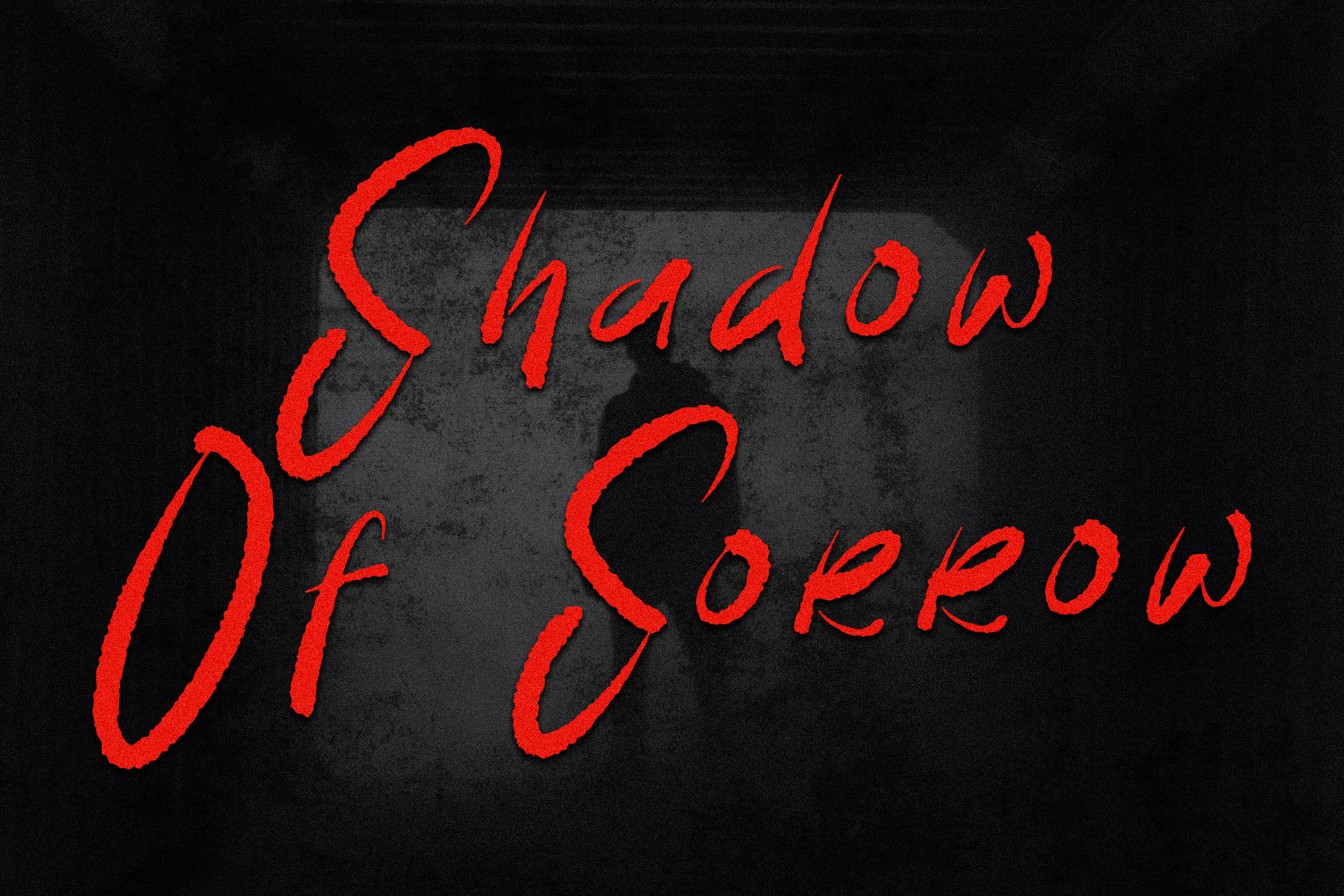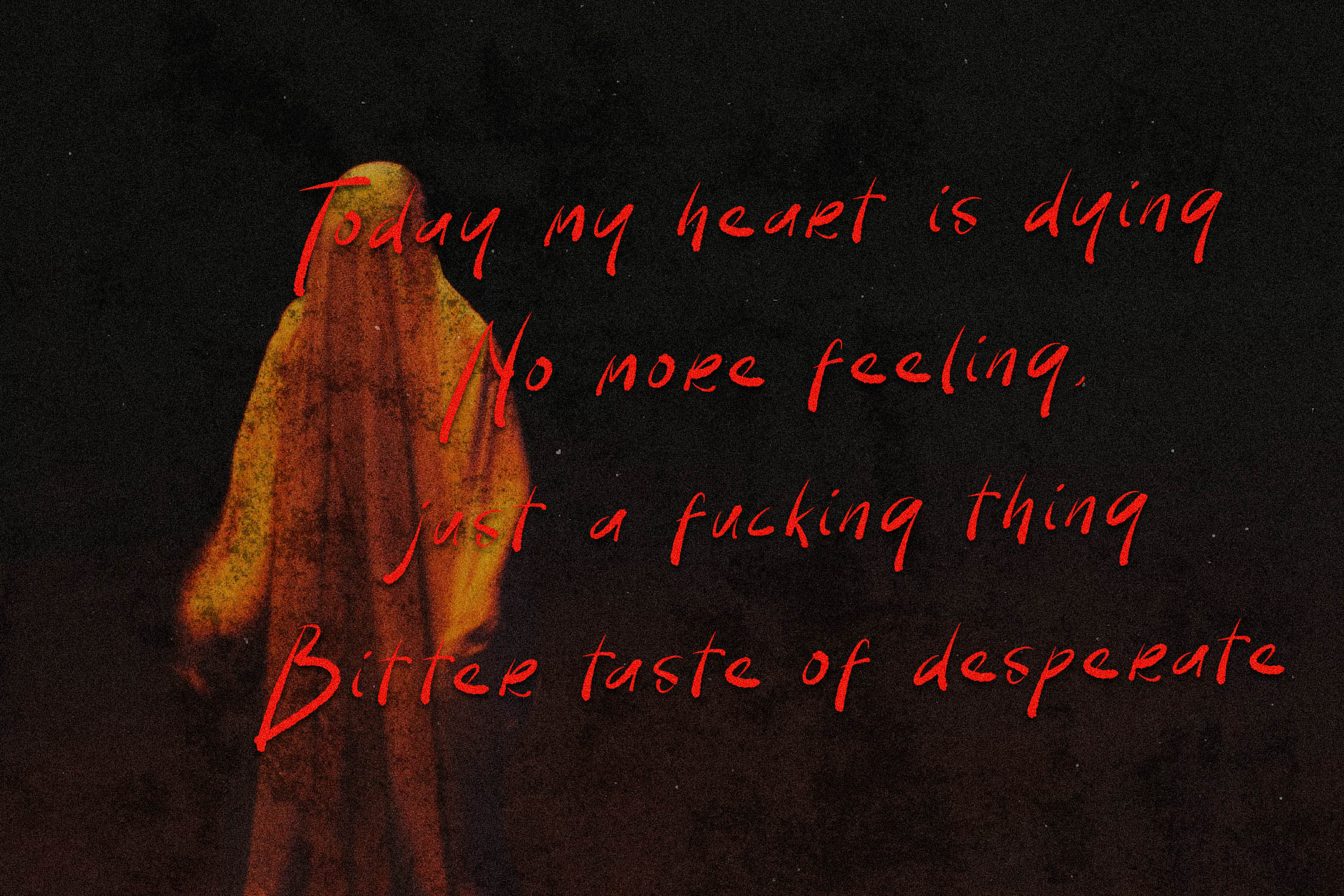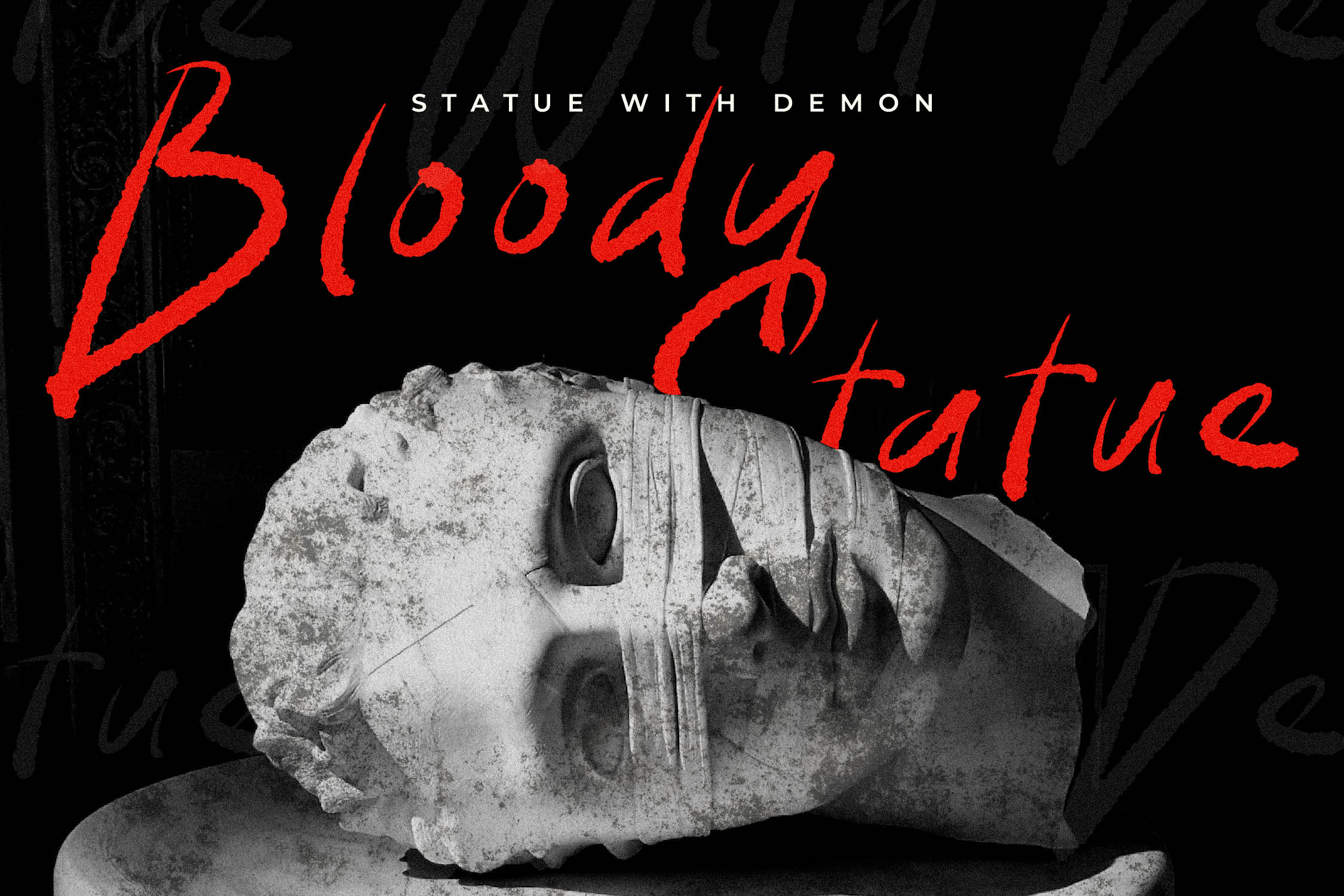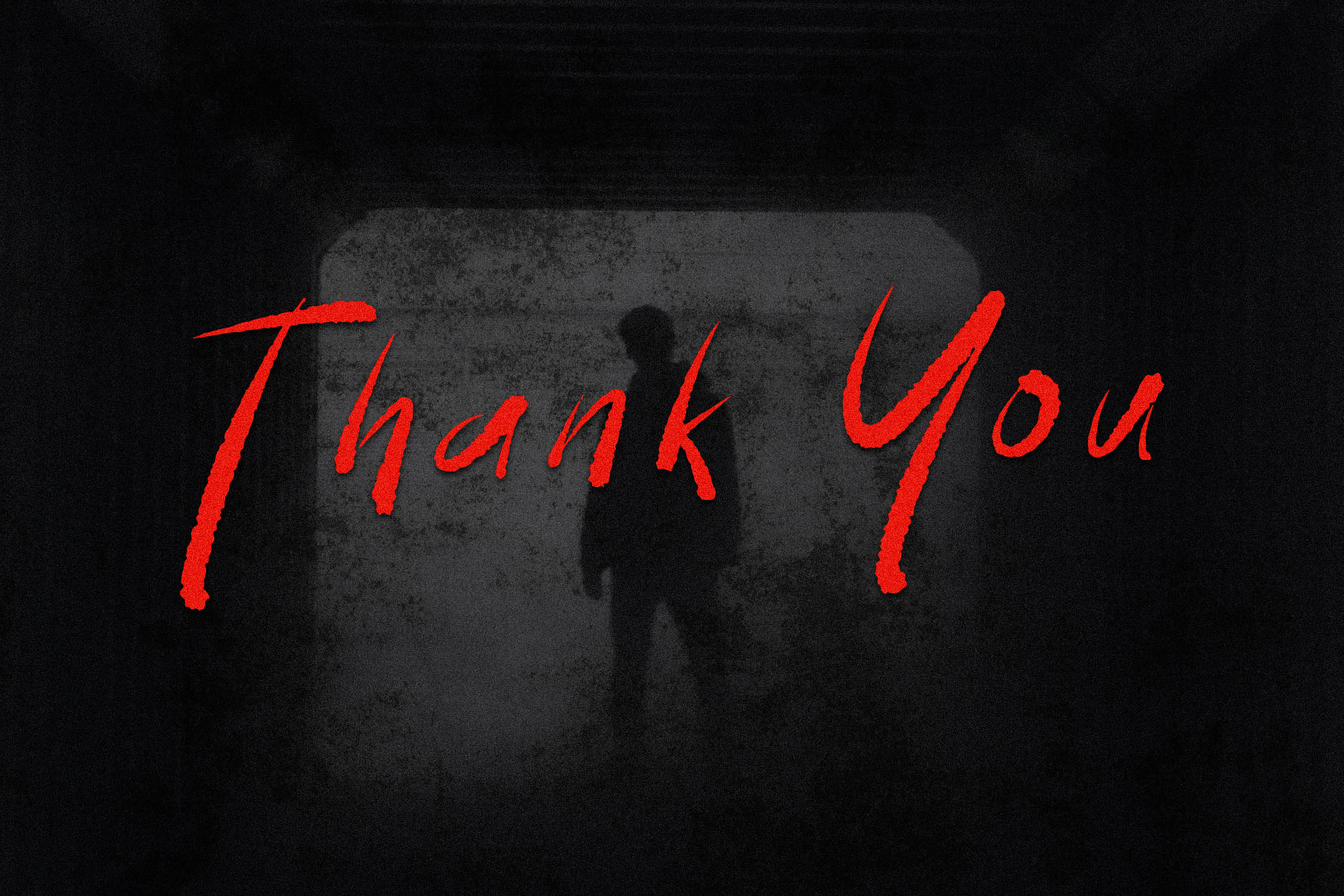
Nightmare Eggplant Display Font is a Creepy Display Font, suitable for any projects such as: logos, branding projects, homeware designs, product packaging, mugs, quotes, posters, shopping bags, t-shirts, book covers, name card, invitation cards, greeting cards, label, photography, watermark, special events, and all your other lovely projects that need a beautiful script taste.